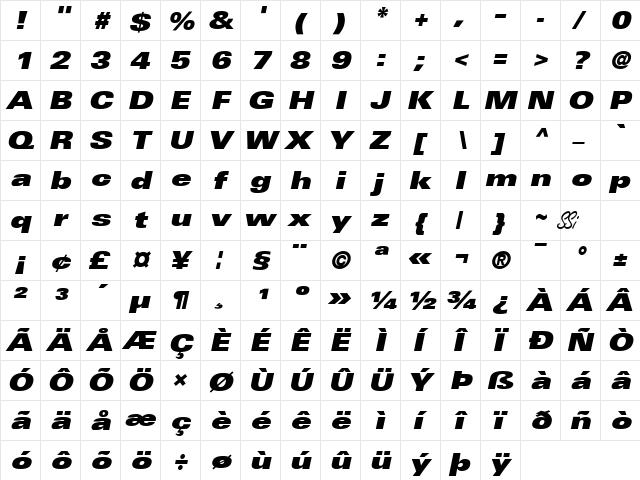
Nova Black Expanded SSi Black Expanded Italic
Design Context for Nova Black Expanded SSi Typeface
Nova Black Expanded SSi is a composed and adaptable typeface that performs quietly and consistently across a wide range of design contexts. The slanted form adds forward momentum and visual energy.
Pro Tip: Try Nova Black Expanded SSi for annotation and caption copy alongside an upright companion — the contrast in angle creates a dynamic but ordered typographic system.